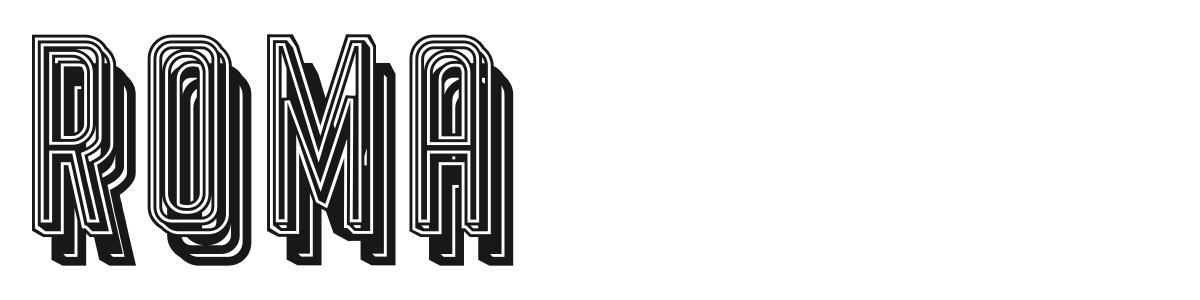
Roma
Roma is a bold condensed display font layered with parallel inline stripes and a strong drop shadow that channels vintage poster and circus lettering. The stacked line treatment gives each character a textured, almost engraved quality that reads powerfully at large sizes. It sits squarely in the tradition of early 20th-century decorative wood-type display faces.